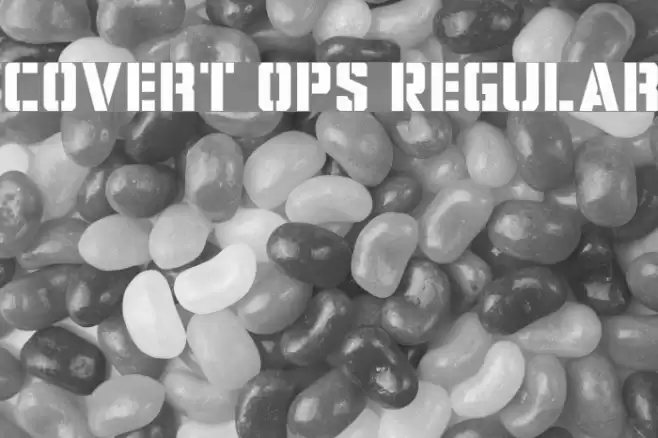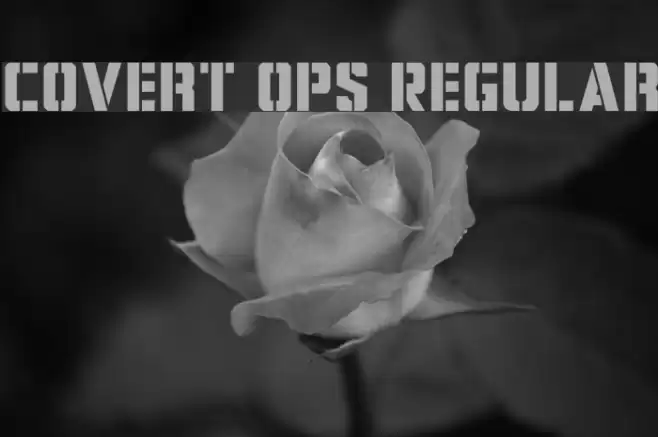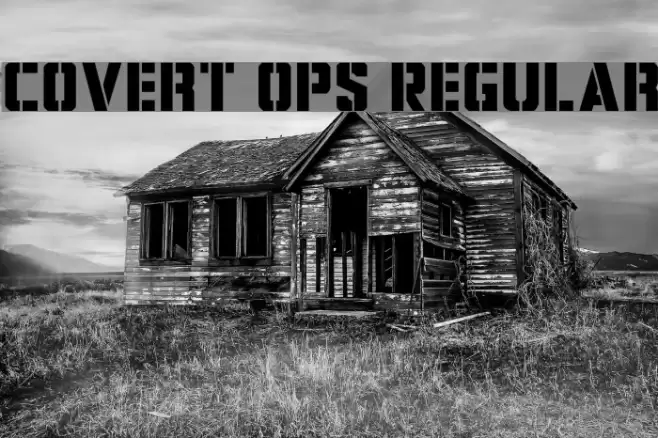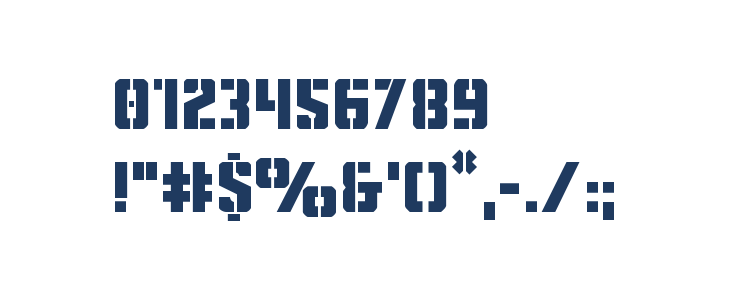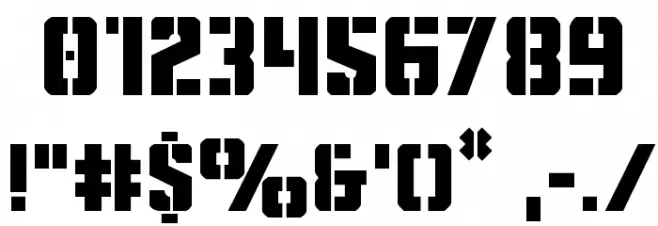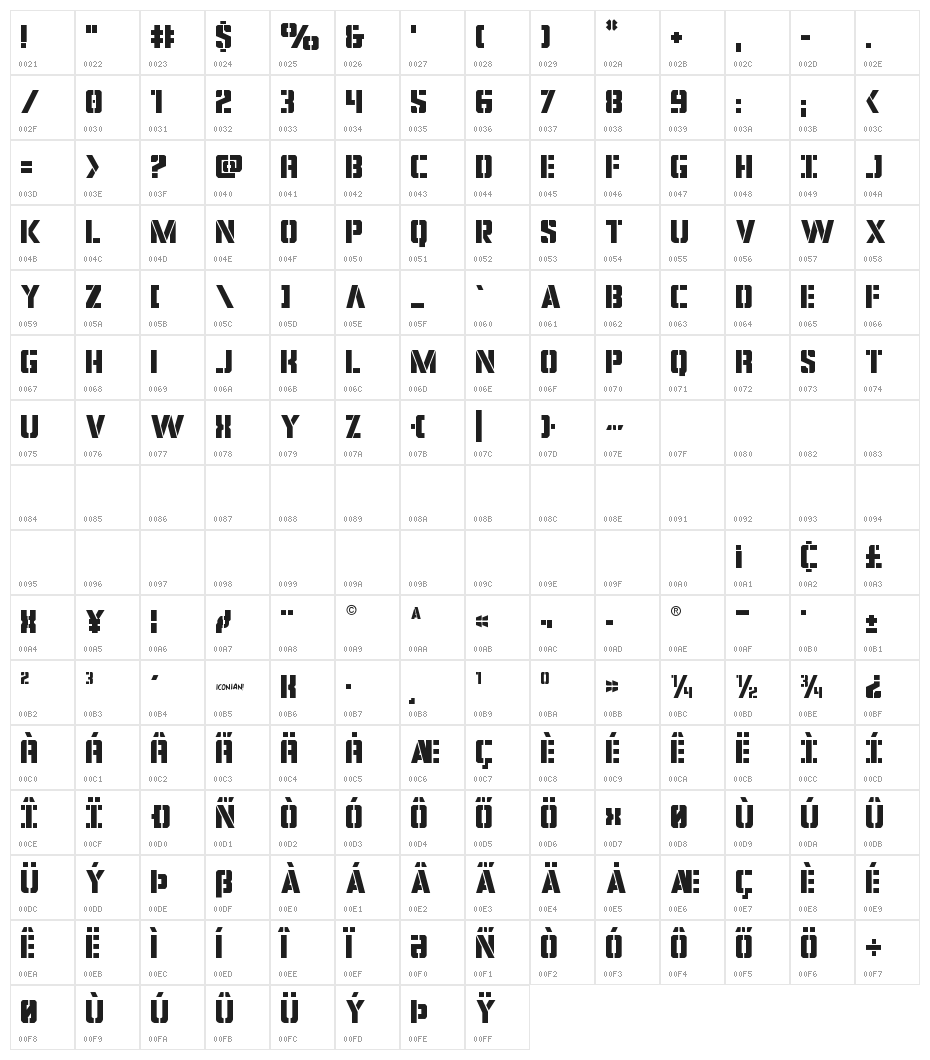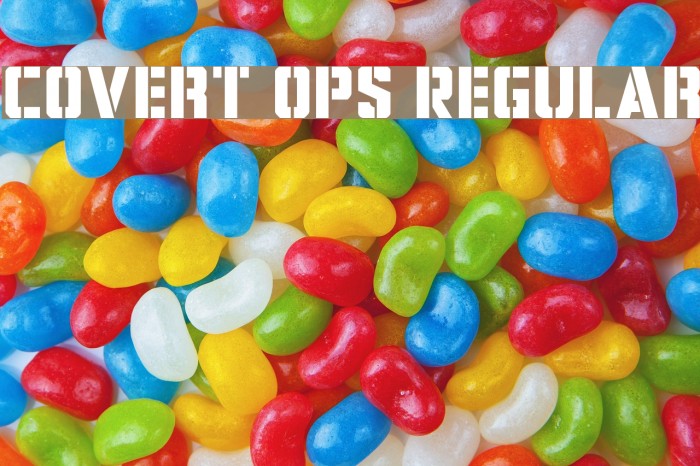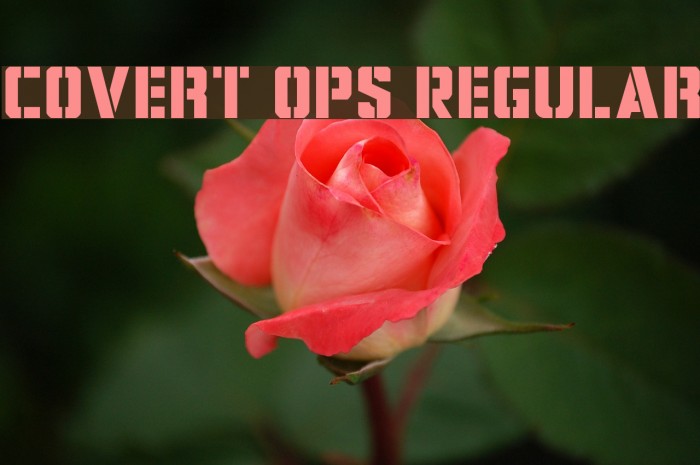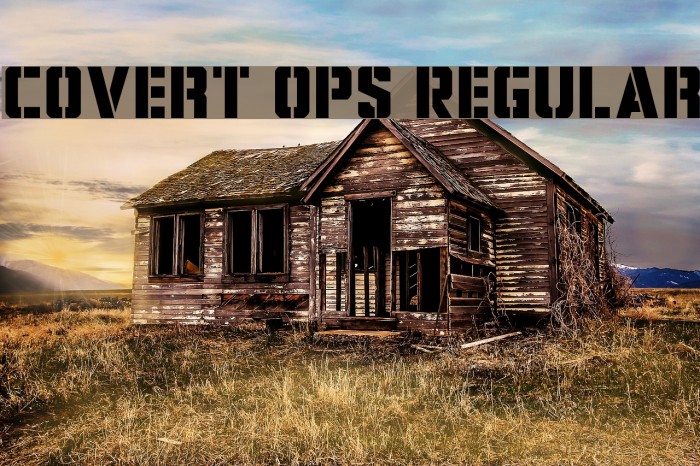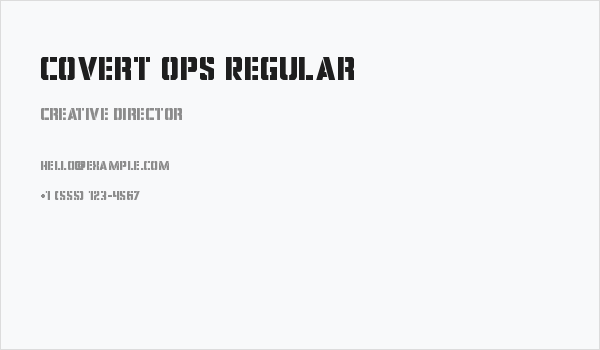
Covert Ops Regular Font
Covert Ops Regular Description
This font features a bold, geometric design with a stencil-like appearance, characterized by its blocky and angular letterforms. The uppercase and lowercase letters maintain a consistent width, contributing to a uniform and structured look. The font's distinct cut-out sections within each character create a sense of ruggedness and industrial style, reminiscent of military or covert operations. The numerals and special characters follow the same design principles, ensuring a cohesive visual identity across all glyphs. The overall aesthetic is strong and impactful, making it suitable for projects that require a bold statement.
A bold, geometric stencil-style font with a rugged, industrial look from Uncategorized fonts.
- Proposed Projects: Ideal for military-themed designs, posters, branding, and signage that require a strong, impactful presence.
- Overall Style: Modern, Industrial